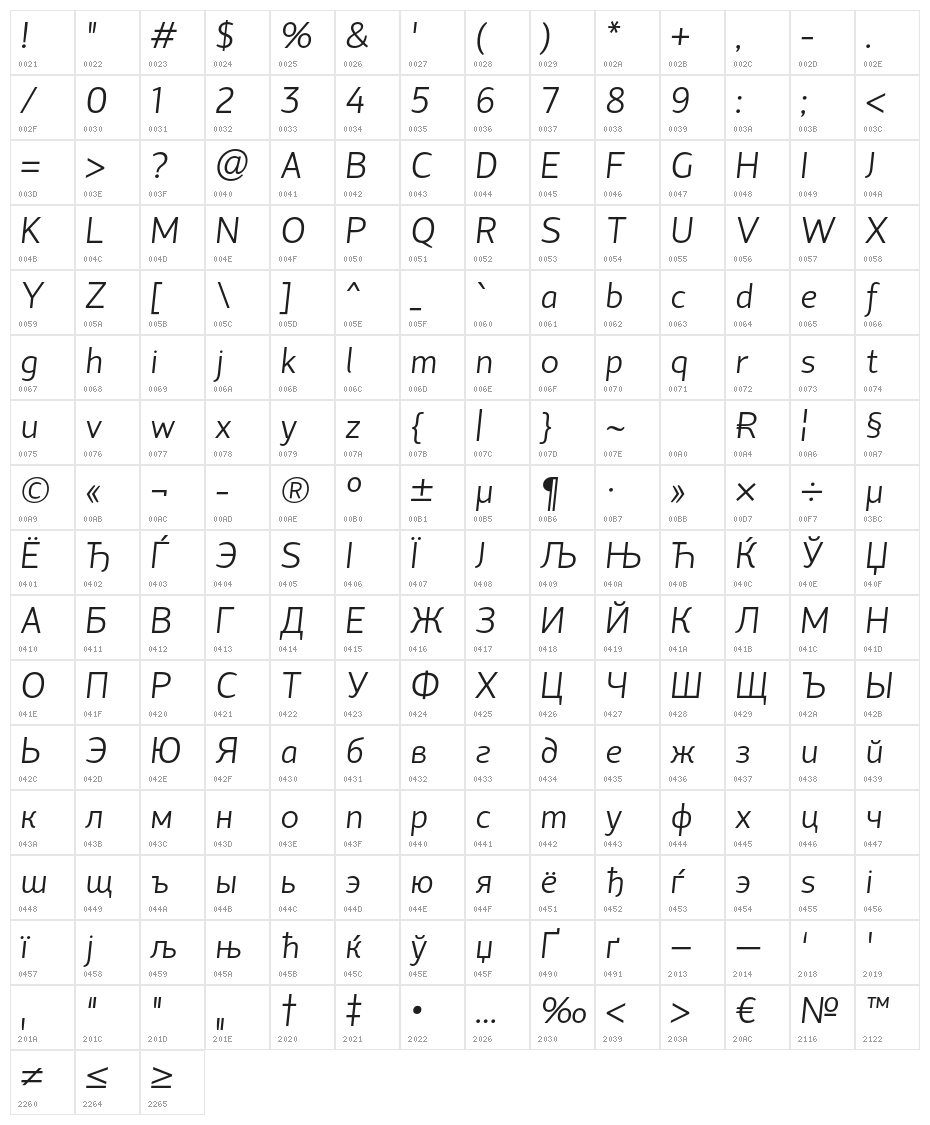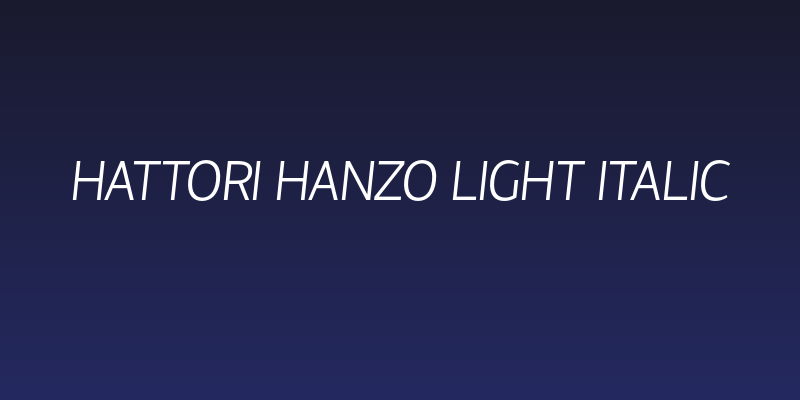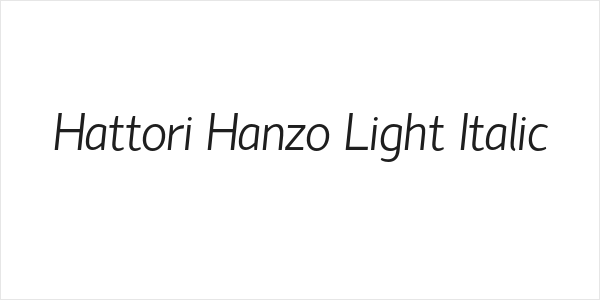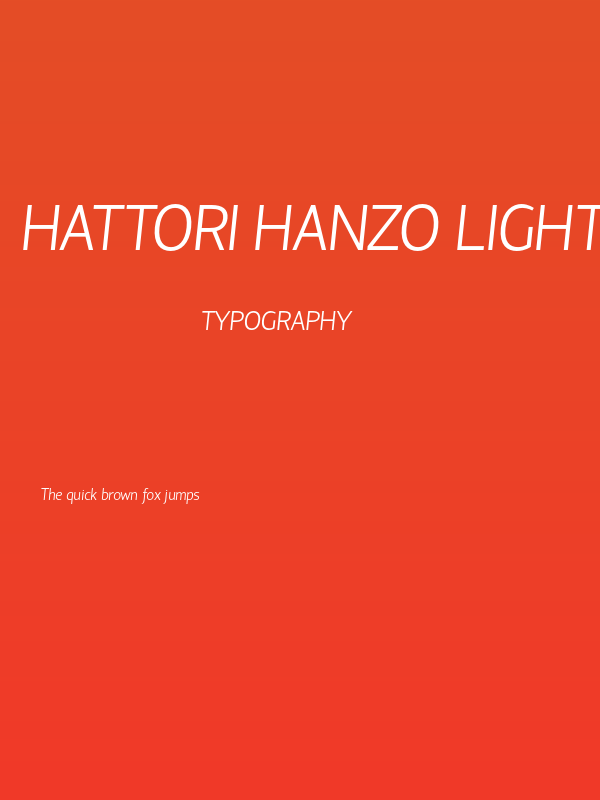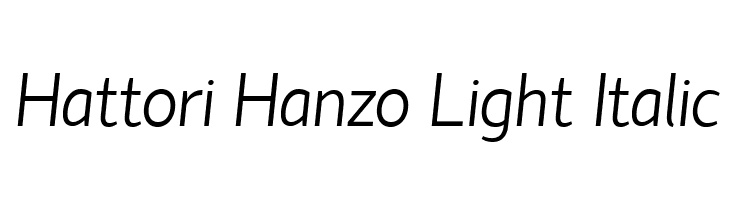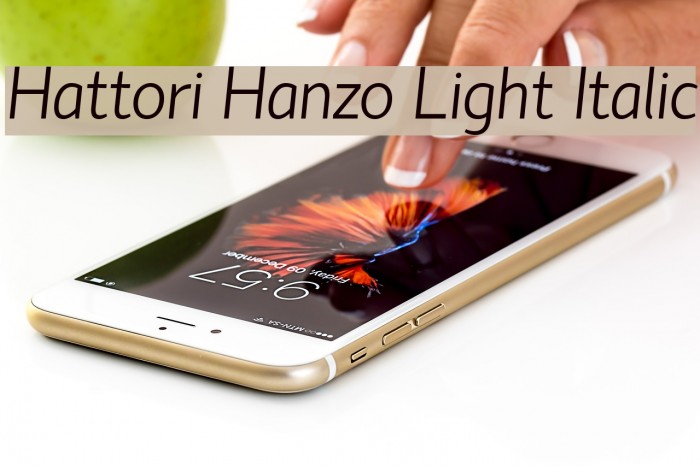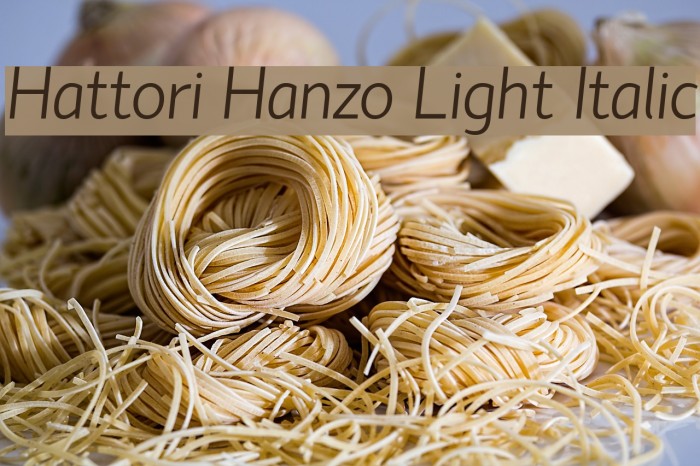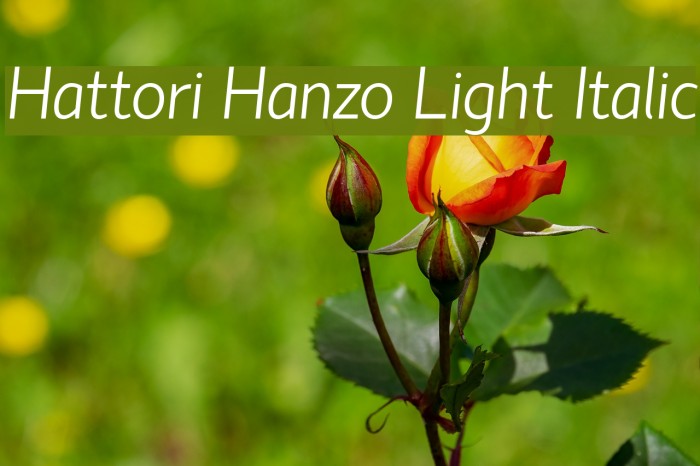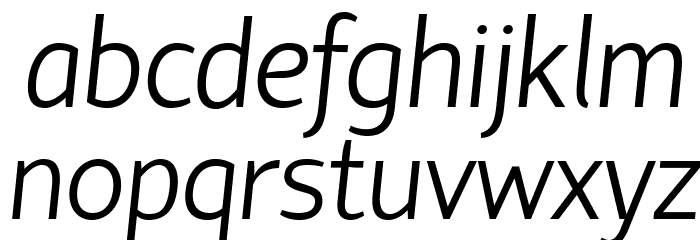
Hattori Hanzo Light Italic Font
Hattori Hanzo Light Italic Description
This font features a sleek and modern design with a light weight and italic style. The characters are slightly slanted, giving a sense of motion and elegance. The sans-serif design ensures clean lines and a contemporary feel, making it versatile for various applications. The character set includes uppercase and lowercase letters, numbers, and a range of special characters. The overall appearance is minimalistic yet sophisticated, suitable for projects that require a touch of modernity and style.
| Use Case | Headlines, Body text, Logos |
| Proposed Projects | Ideal for branding, editorial design, digital content, and modern advertising campaigns. |